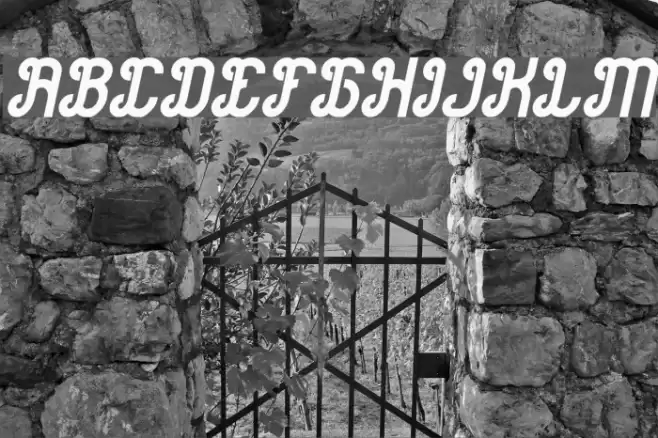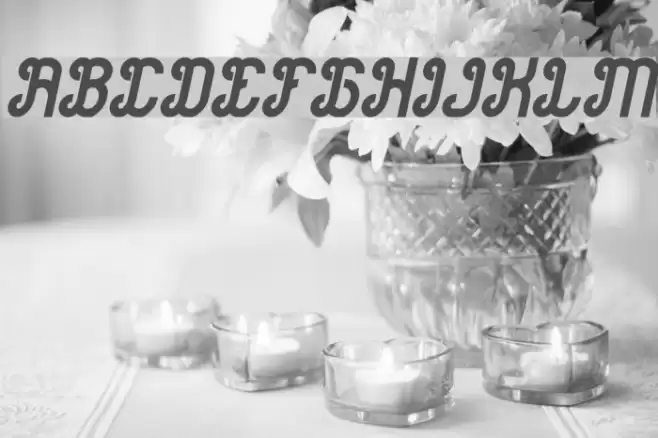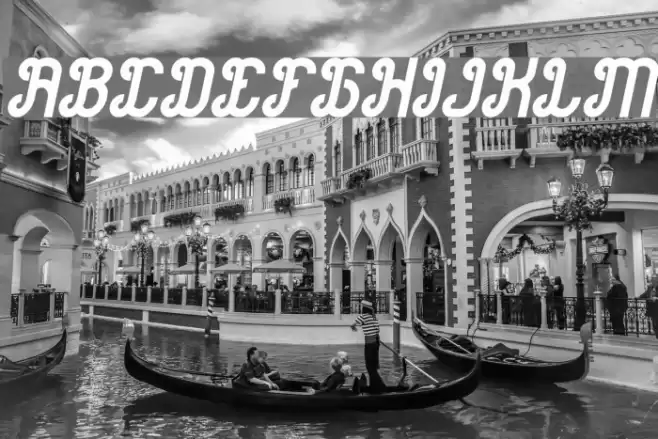
Green Avocado Bold Italic Font
Green Avocado Bold Italic Description
This font features a bold and italic style with a playful, decorative flair. Each character is crafted with a unique, flowing design that incorporates smooth curves and loops, giving it a whimsical and dynamic appearance. The uppercase letters are particularly striking, with their bold strokes and distinctive shapes, while the lowercase letters maintain a consistent style that complements the overall design. The numerals and special characters are equally expressive, maintaining the same bold and italicized characteristics. This font's unique style makes it stand out, offering a creative and artistic touch to any project.
A bold, italic, and decorative font with playful curves and loops from Uncategorized fonts.
- Proposed Projects: Ideal for creative projects such as posters, branding, and invitations where a whimsical and artistic touch is desired.